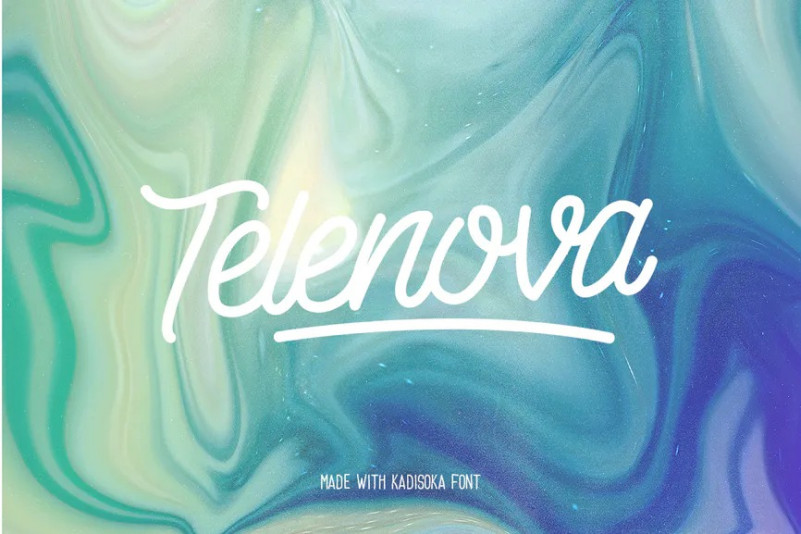
Kadisoka Monoline Font
This item is really perfect for you who needs a typeface for especially logotype, apparel, invitation, branding, packaging, advertising etc. This typeface is comes in uppercase, lowercase, punctuations, symbols & numerals, stylistic set alternate, ligatures, etc also support multilingual and already PUA encoded.